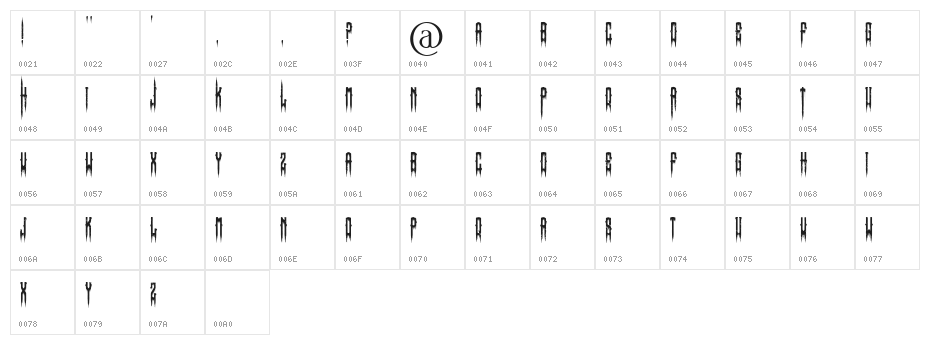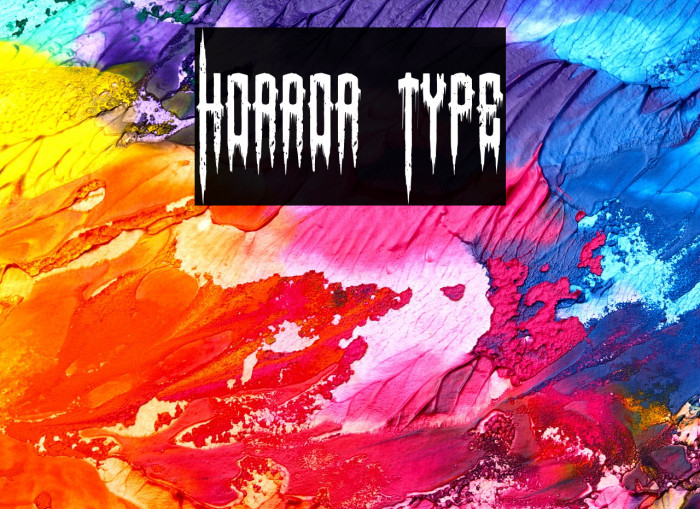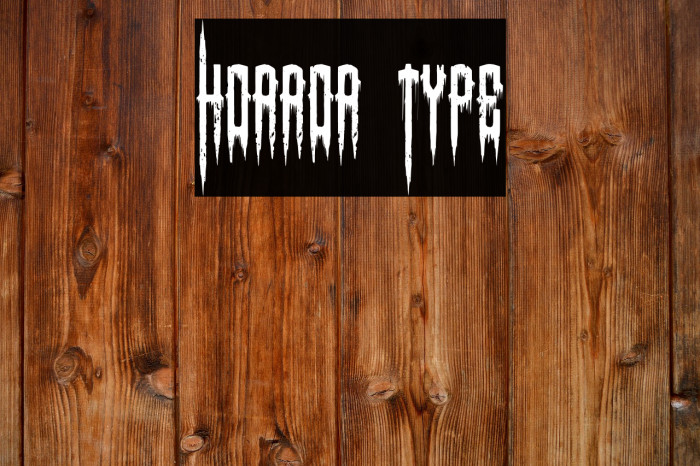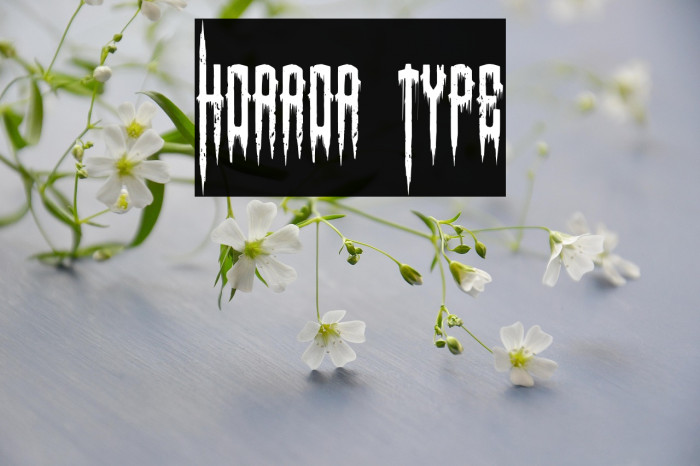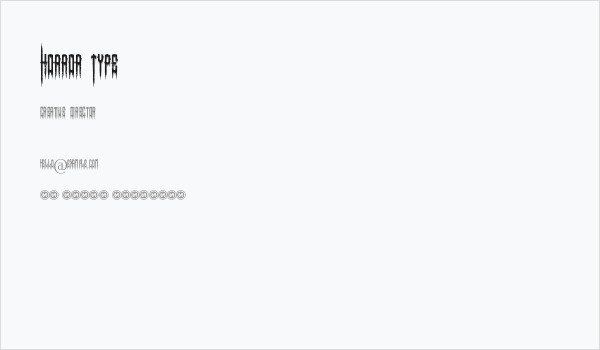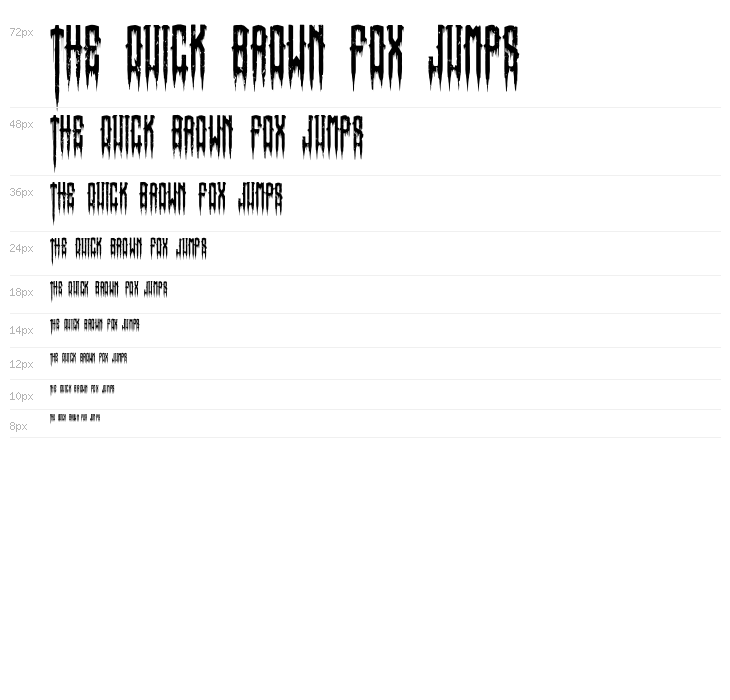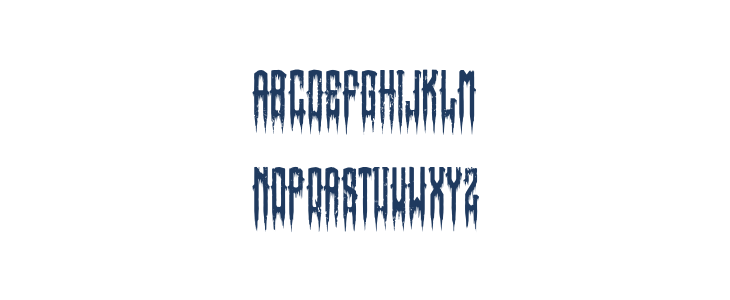
Horror Type Font
Horror Type Description
This font features a chilling and eerie design, perfect for creating a spooky atmosphere. The characters have jagged edges and elongated forms, resembling dripping or melting elements, which contribute to its horror-themed aesthetic. The uppercase and lowercase letters maintain a consistent style, enhancing the overall cohesion of the typeface. The numbers and special characters follow the same unsettling design, making it suitable for themed projects. Its unique appearance makes it stand out, capturing attention with its dramatic and haunting look.
| Proposed Projects | Ideal for Halloween posters, horror movie titles, haunted house flyers, and any project requiring a spooky, dramatic touch. |